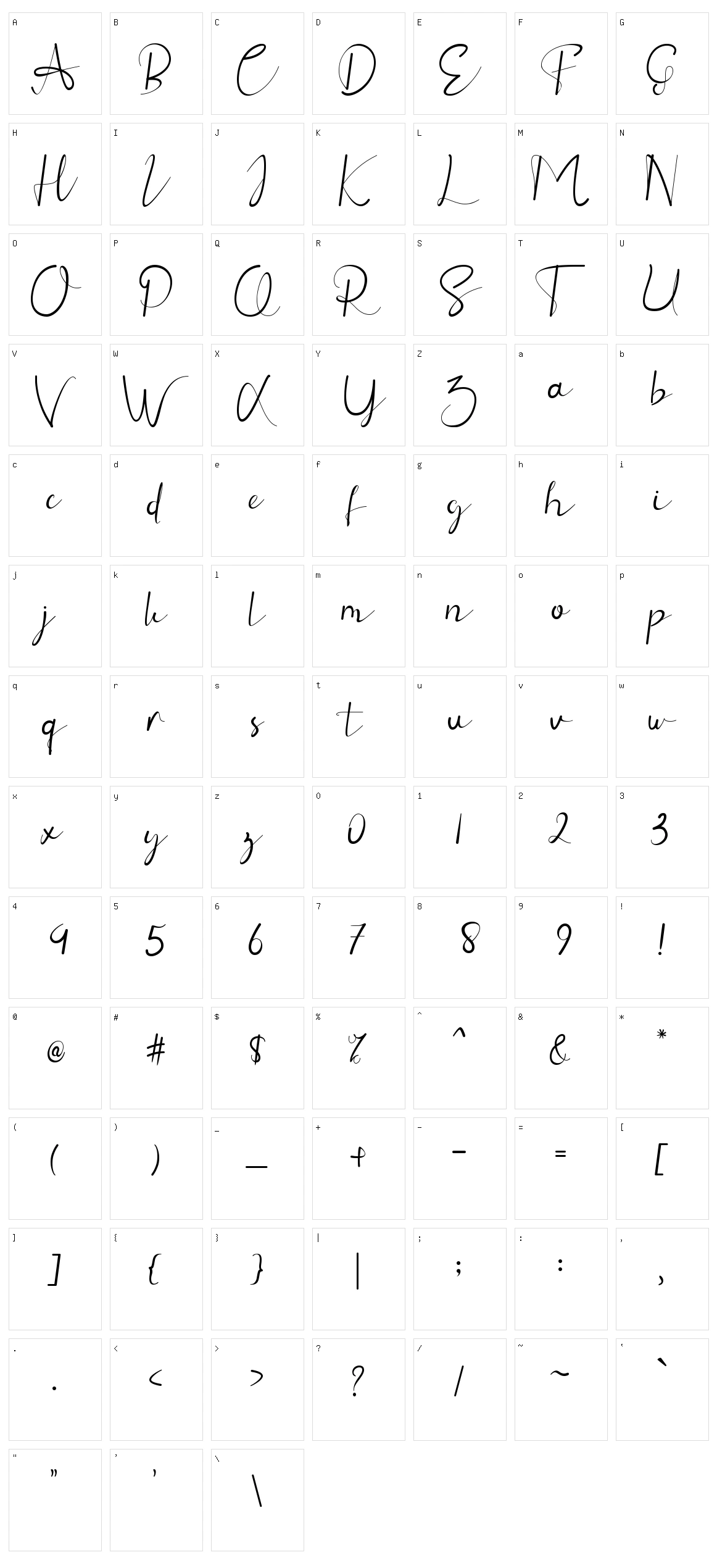
Introducing The Folk - Signature Script Font
The Folk is a smooth, elegant and stylish handwritten font.
It has a beautiful and balanced character and as a result, fits into a wide set of designs.
FEATURE
Ligature
Uppercase and lowercase
Numbering and Punctuation